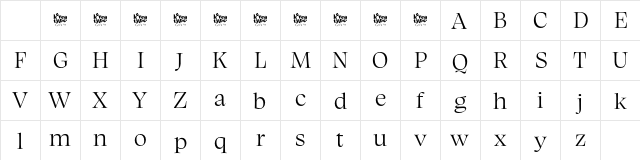
Charlea Demo Light is a composed and adaptable typeface that performs quietly and consistently across a wide range of design contexts. Its slender proportions lend an understated elegance to any composition.